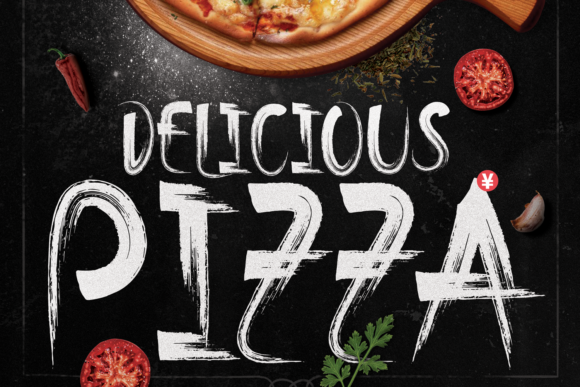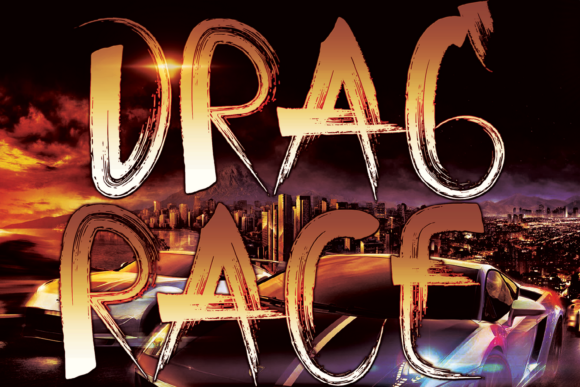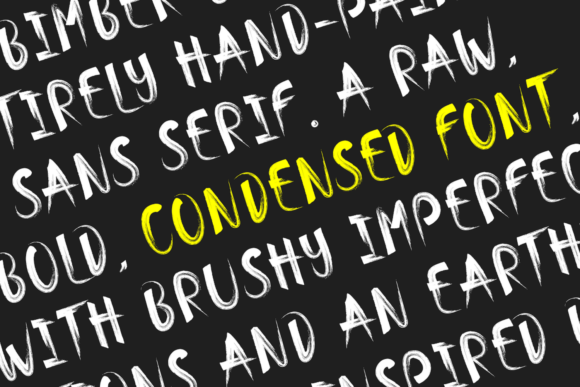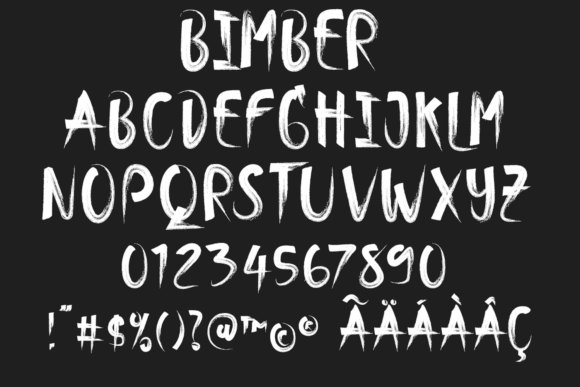
Bimber Brush Font
About Bimber Brush Font
Bimber Brush is a unique handwritten font. It features a condensed and bold look that makes it perfect for tattoos, barbershops, t-shirts and any porjects that requires a personalized look!